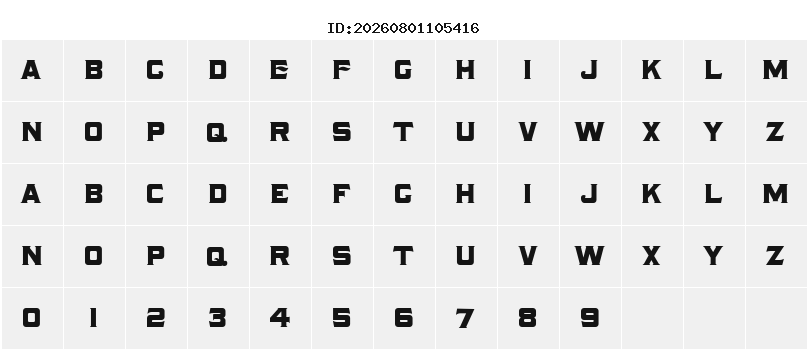
LHF Naylorville Preview
• Font Name: LHF Naylorville
• Full Font Name: LHF Naylorville
About LHF Naylorville.ttf
LHF Naylorville.ttf is a modern, elegant sans-serif font designed for ultimate readability and visual harmony. Perfect for branding, headlines, web design, and print materials.